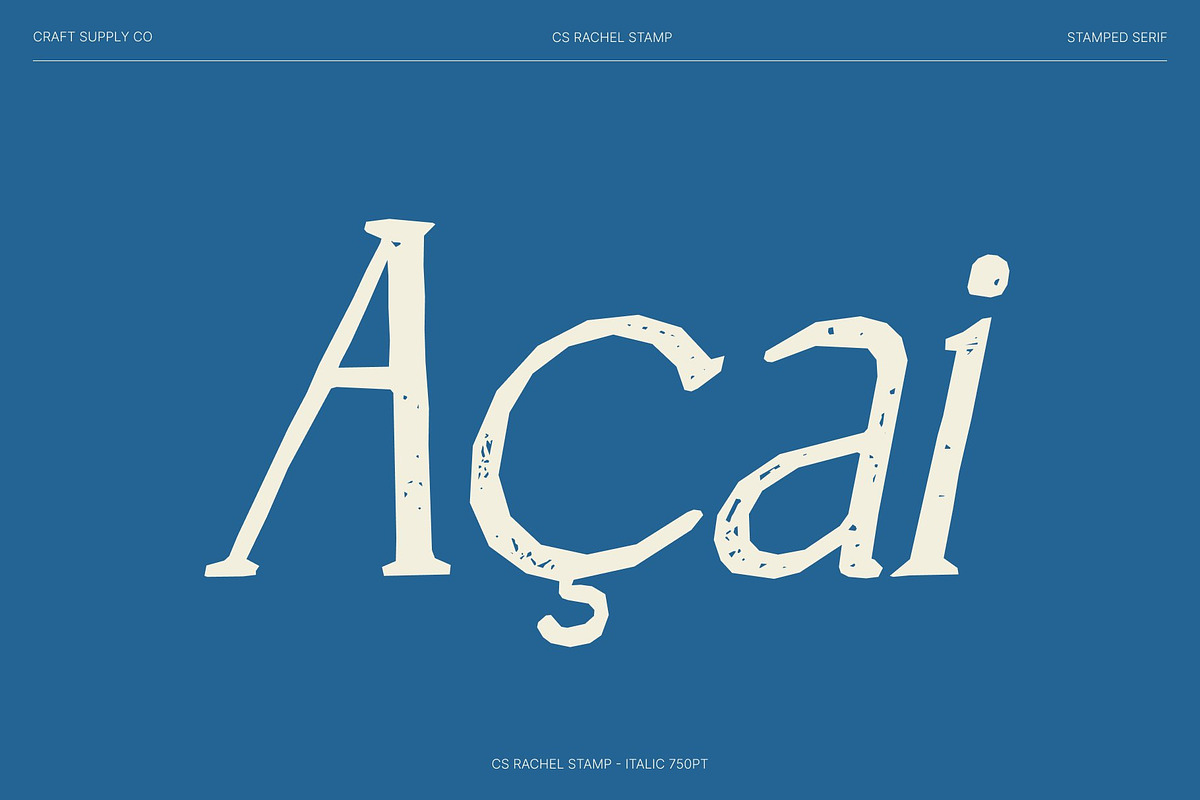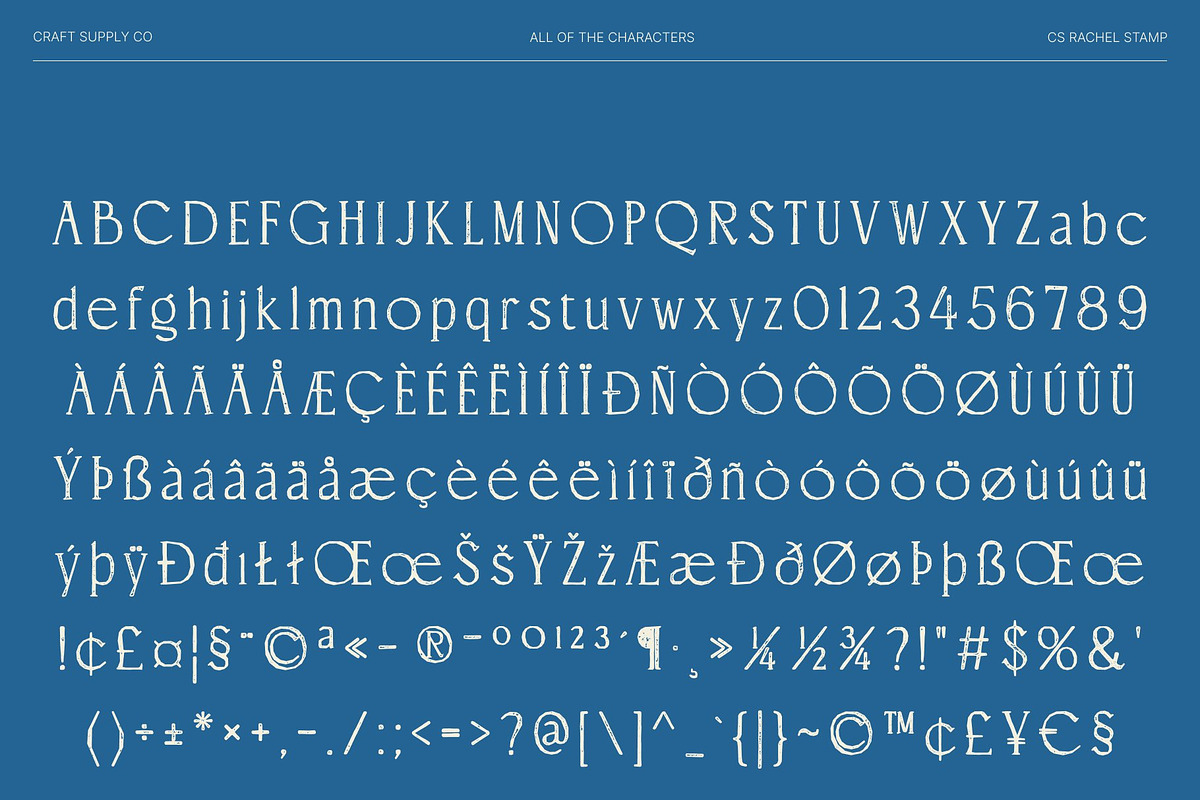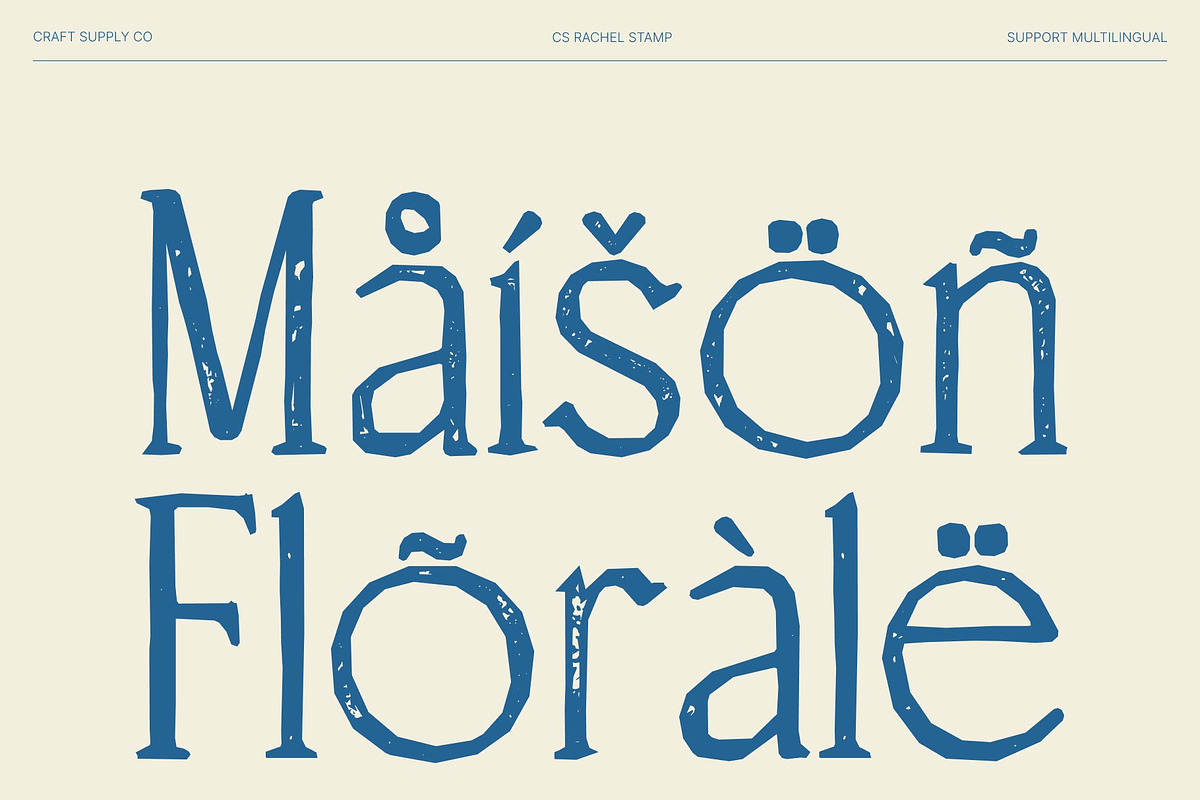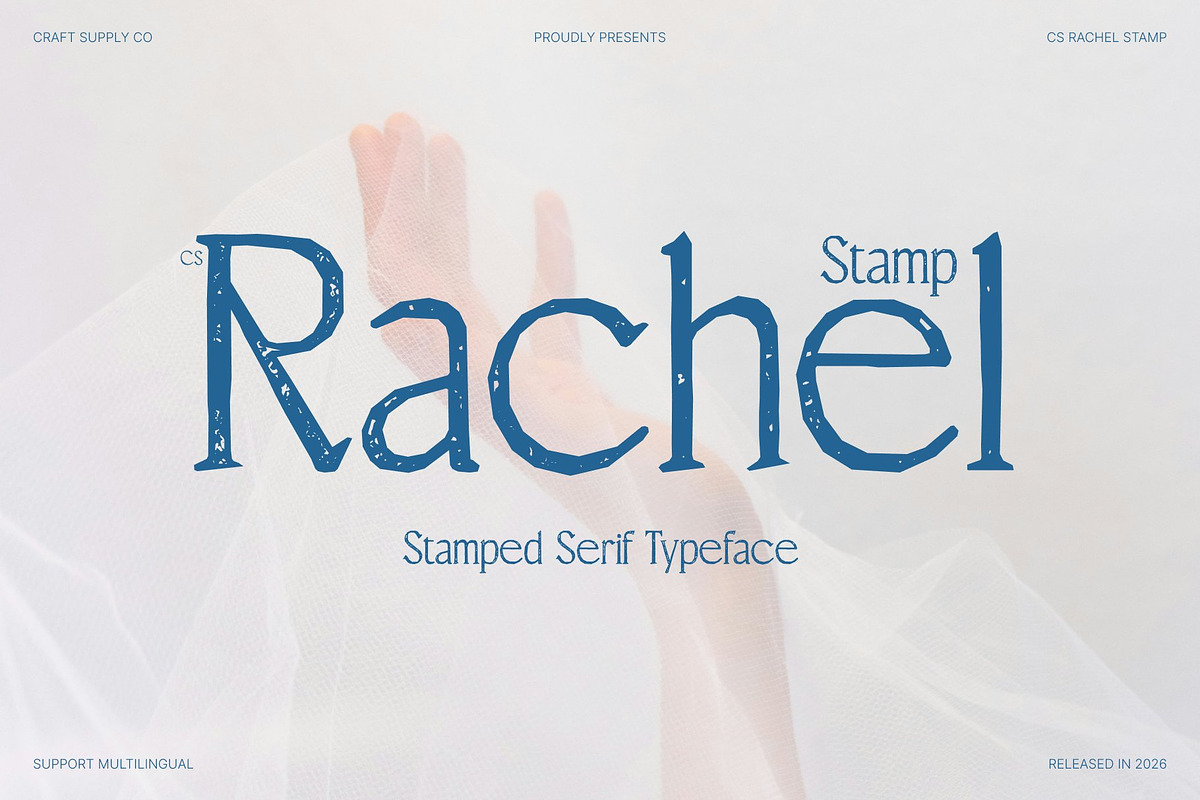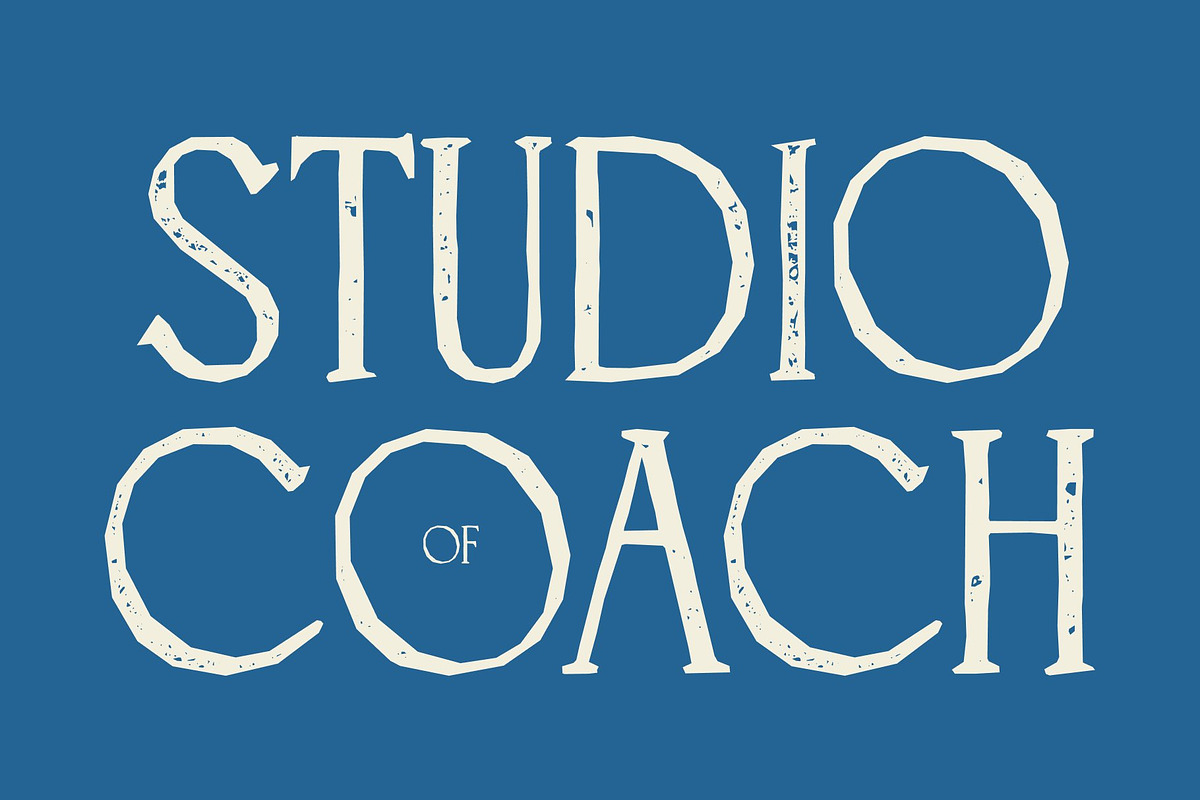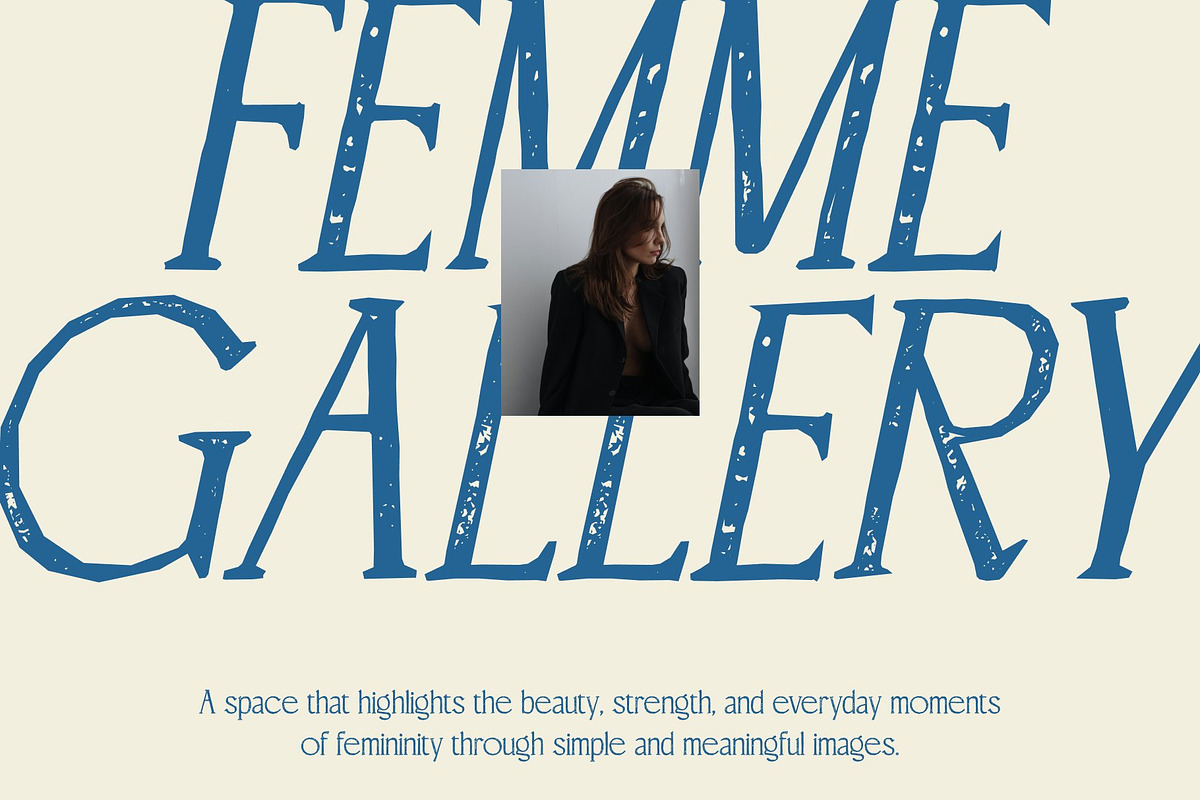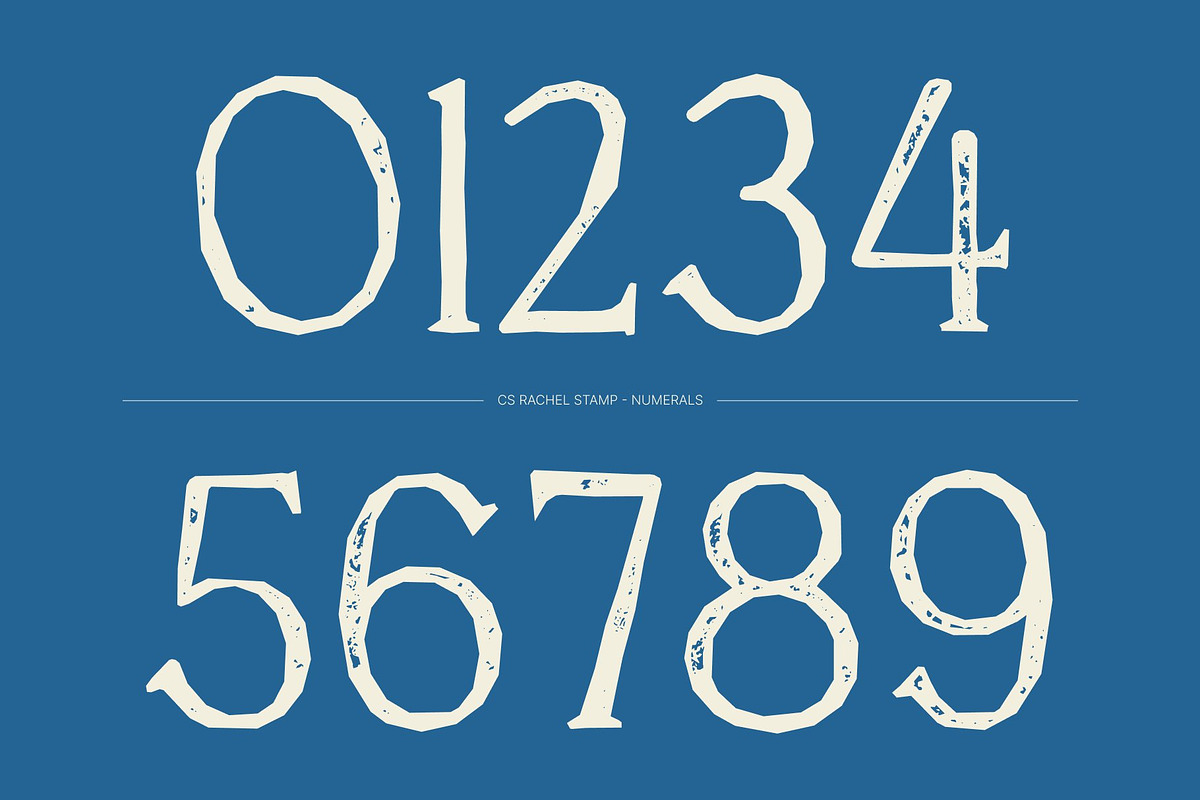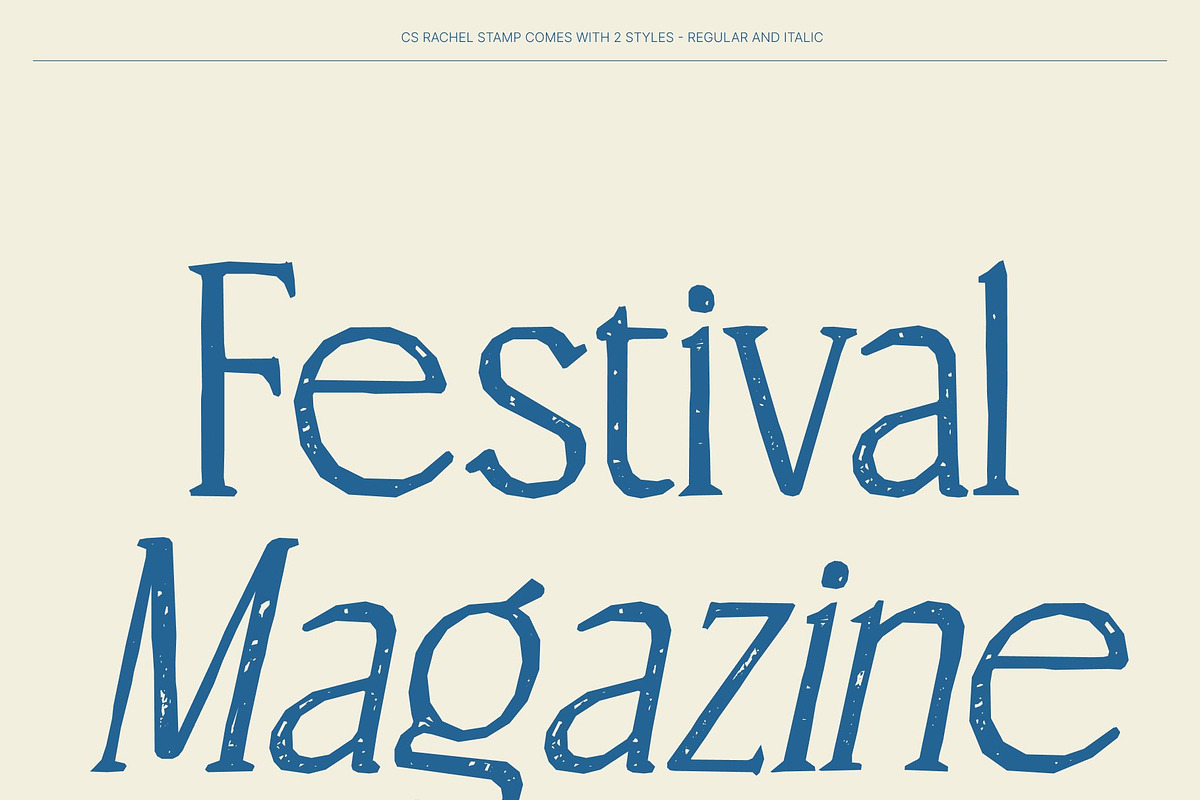
CS Rachel Stamp
CS Rachel Stamp – Elegant Serif Font: Where Refined Beauty Meets Vintage Artistry
Slender Elongated Serifs with Graceful Sophistication This is an elegant serif font crafted with slender elongated serifs that radiate refinement, beauty, and timeless style. Its graceful proportions create a polished visual rhythm that feels luxurious, delicate, and highly sophisticated. Every letterform is designed to bring elegance and clarity, making the font perfect for premium visual compositions.
Timeless Elegance with Contemporary Style This font delivers a typographic voice that feels stylish, graceful, and professional. The elongated serif details enhance its luxurious personality while maintaining readability and balance, resulting in a typeface ideal for upscale and artistic design projects.
Stamped Texture with Vintage Artistic Character This font introduces a handcrafted finish inspired by traditional printing techniques. The slightly rough and organic texture adds vintage character, artistic depth, and authentic old-design charm to every letter. This expressive detail enriches the elegant serif forms with warmth and individuality.
Perfect for Luxury Branding, Editorials, and Posters This font perfect for luxury branding, magazines, posters, editorials, fashion campaigns, and sophisticated creative projects. Its elegant serif forms and textured detailing make it ideal for logos, invitations, packaging, promotional graphics, and premium visual identities.
CS Rachel Stamp Regular
CS Rachel Stamp Italic